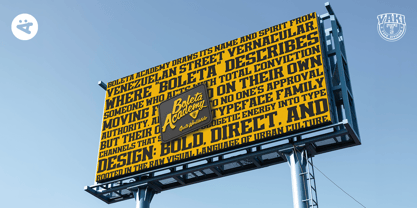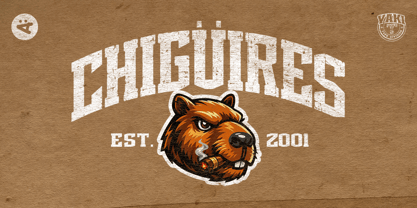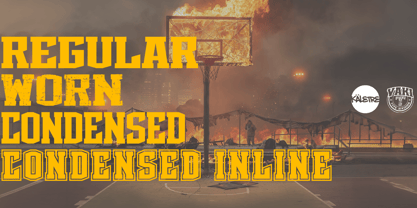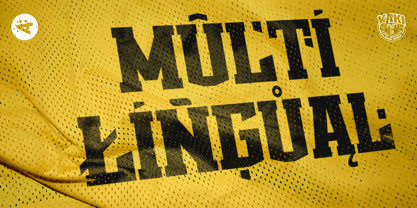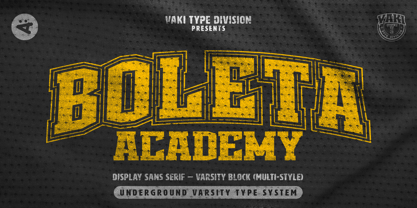
Boleta Academy
La familia tipográfica Boleta Academy fue diseñada por Vaki Art y publicada por Kaletre. Boleta Academy contiene 4 estilos y opciones de paquete familiar. Más información sobre esta familia
Released by KÄLETRE, BOLETA ACADEMY is a collegiate varsity block typeface built for headlines, sports branding, and streetwear graphics. Part of the GUETO Underground Varsity Type System, it ships in Regular, Worn, Condensed, and Condensed Inline styles, solid, weathered, tight, or outlined, each ready to command attention with bold, no-nonsense character.